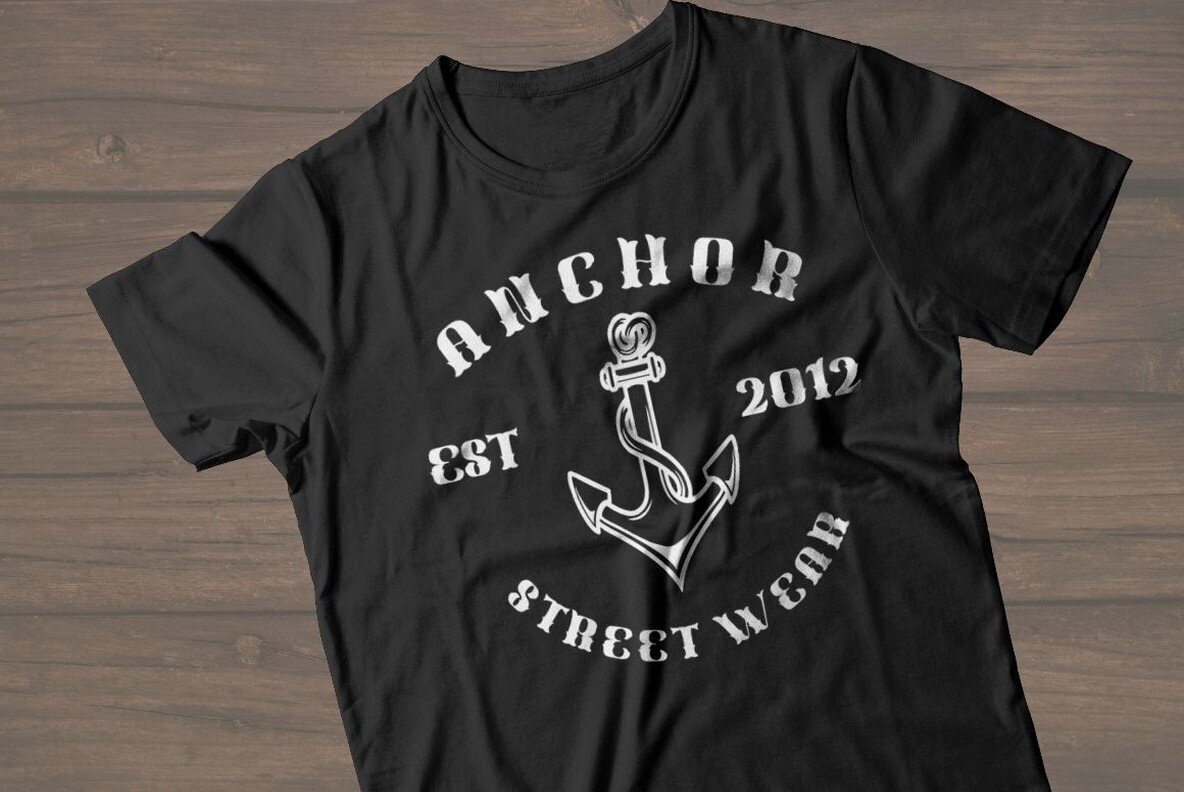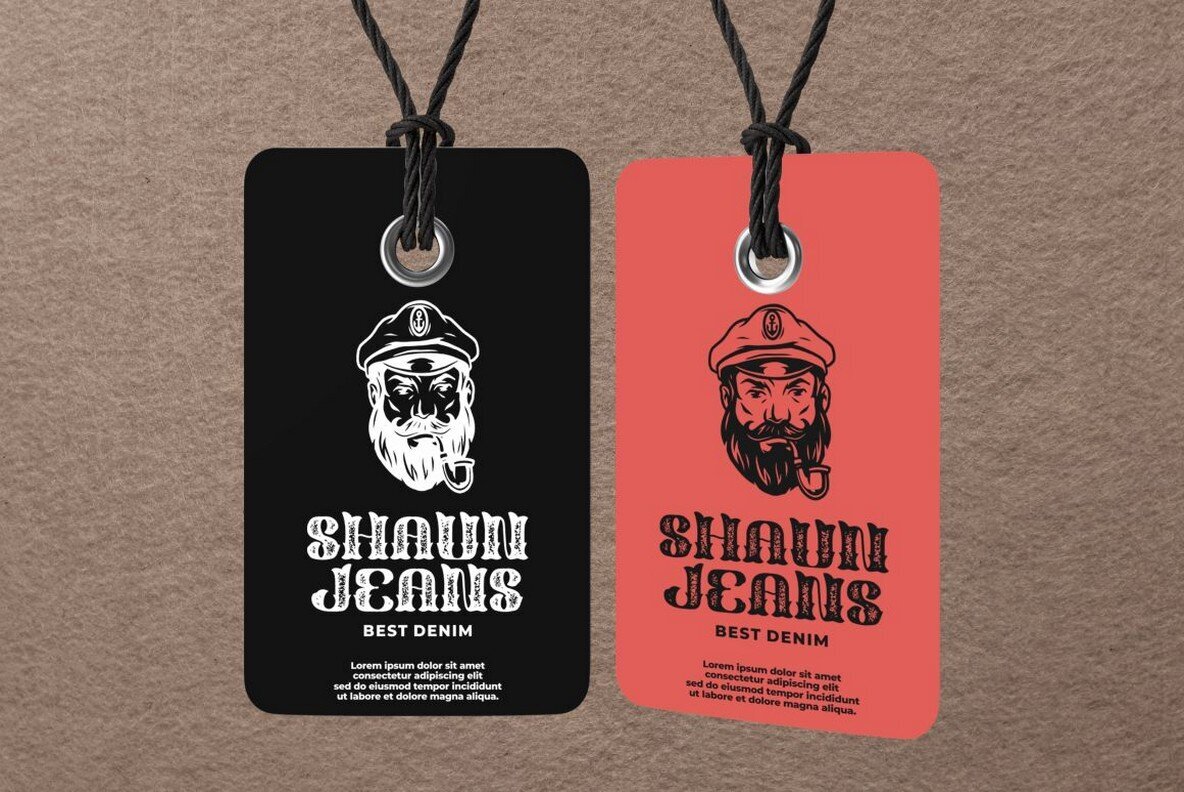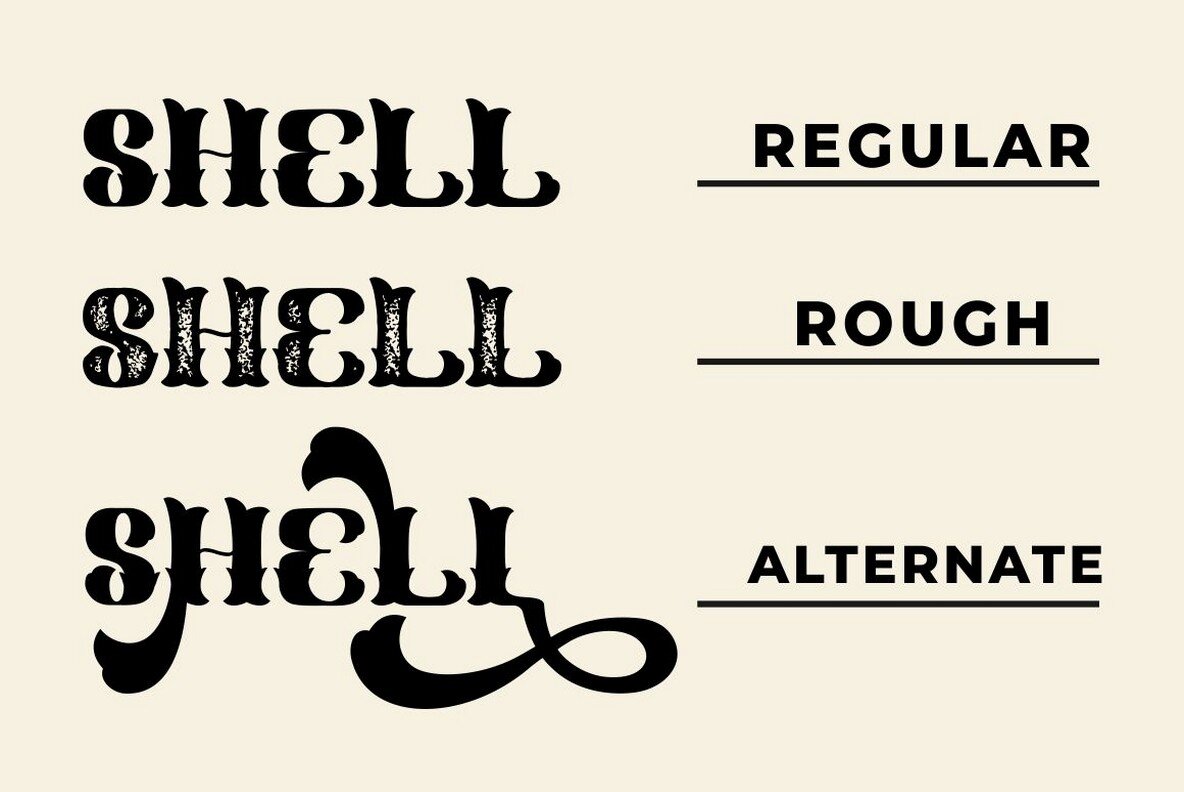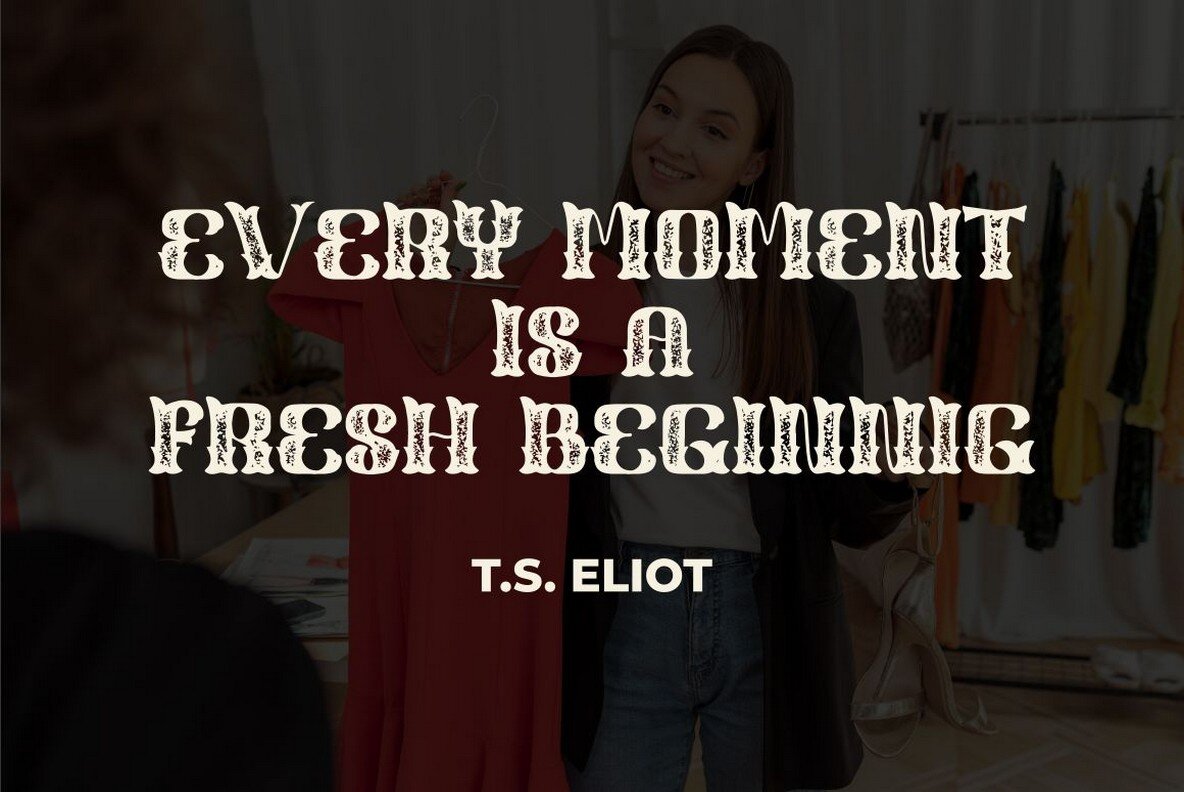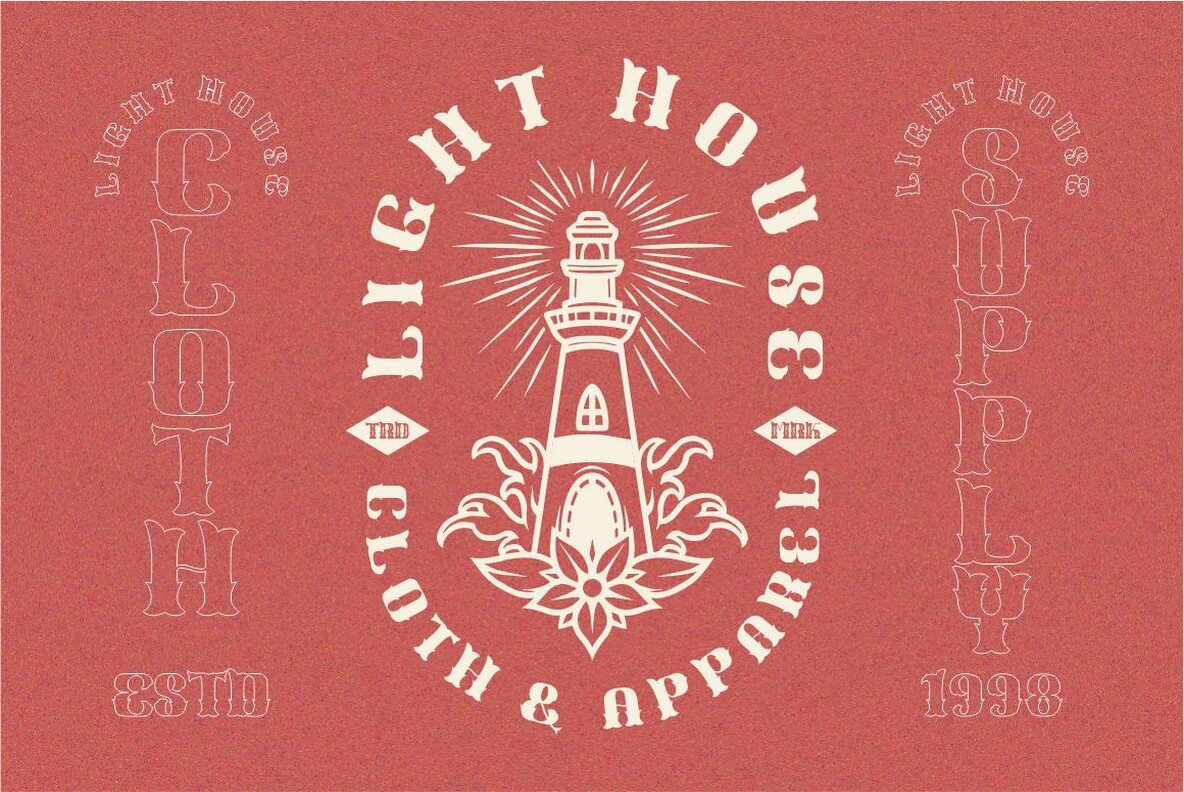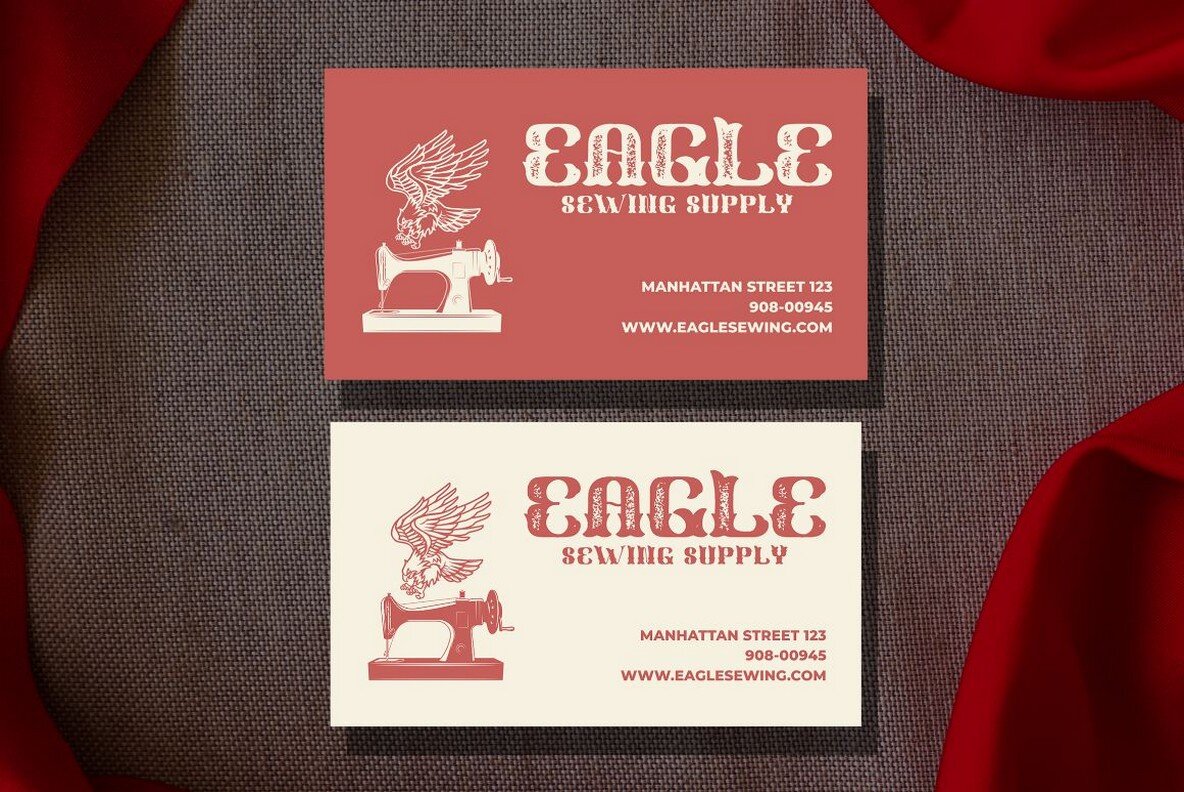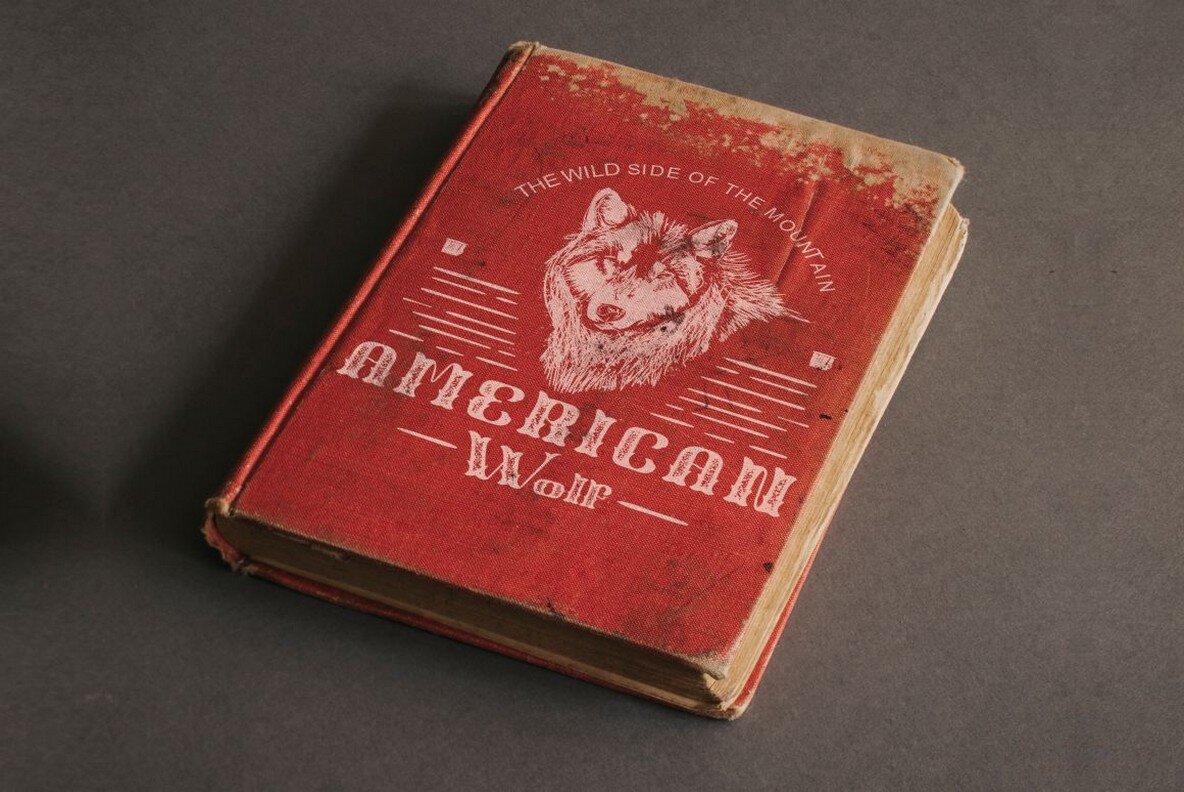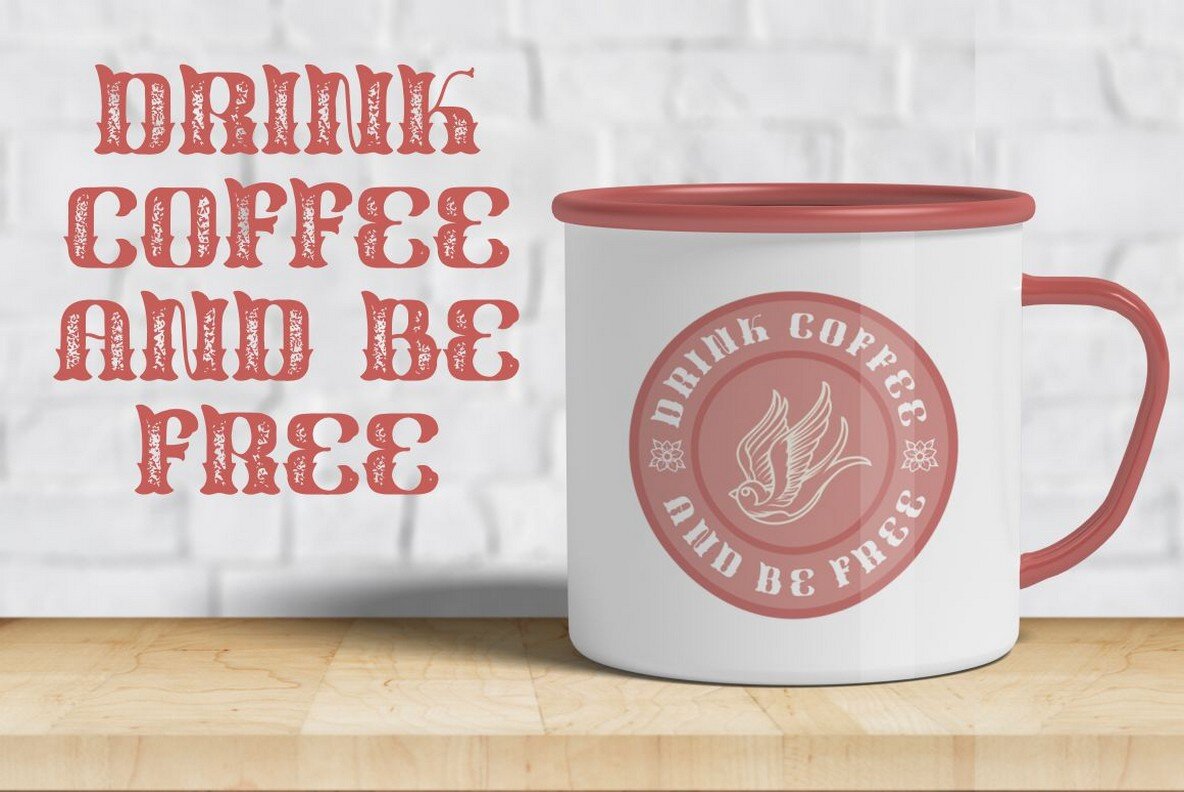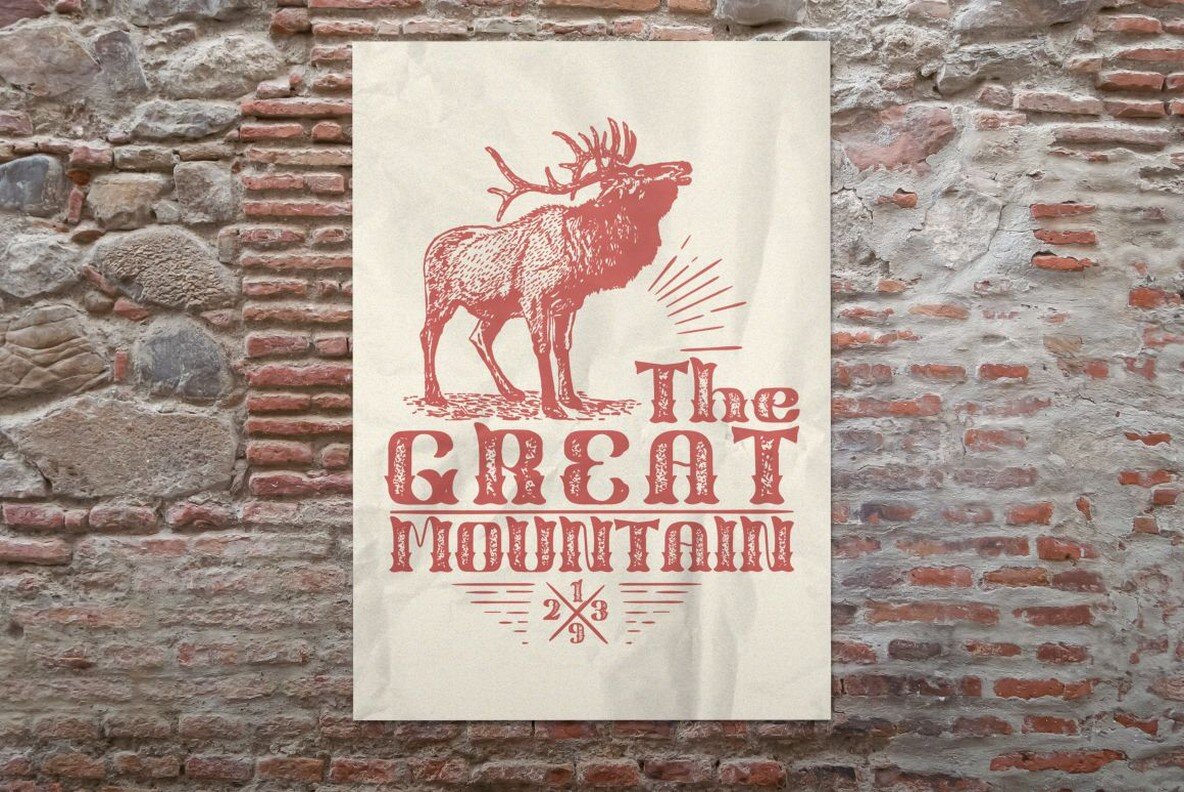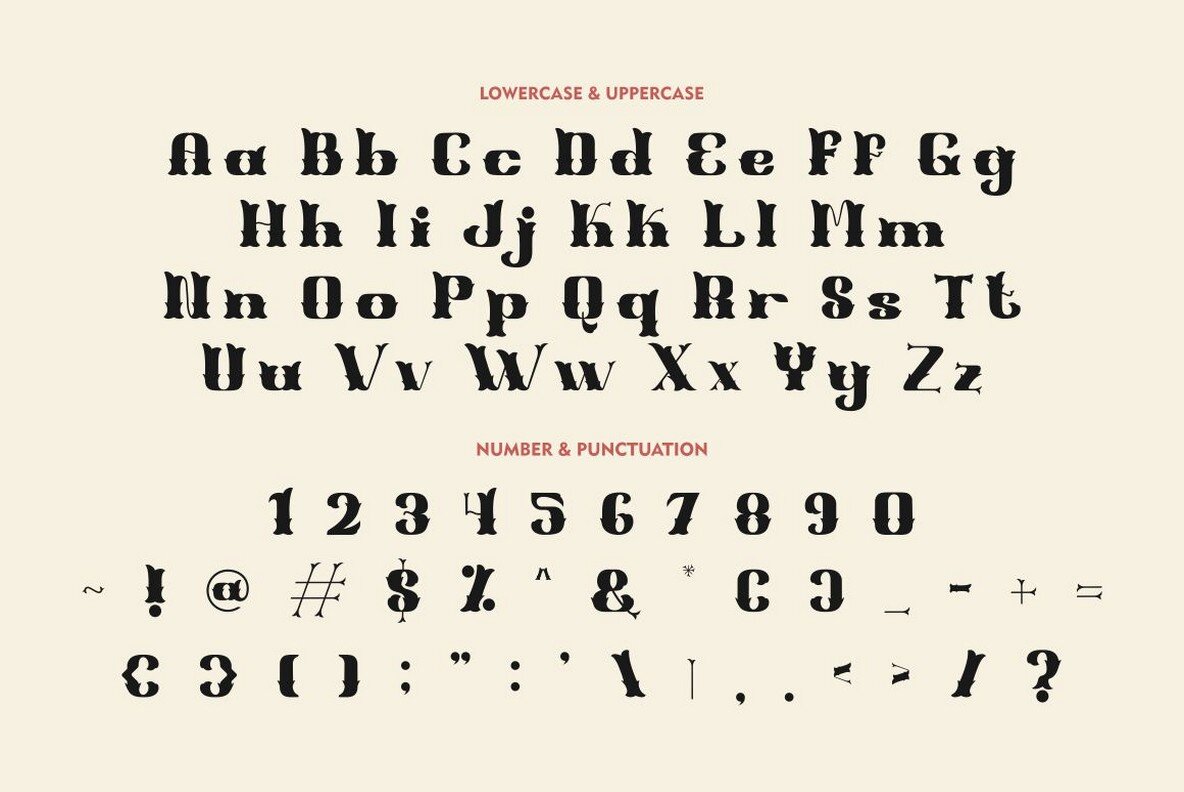
Shell Mera Font
Shell Mera Regular
Shell Mera Stamp
Shell Mera offers a nostalgic nod to the 1970s, evoking the bold spirit of cowboy and sheriff posters while maintaining versatility for everyday projects. Its distinct charm lies in the varied height of each character, with an irregular baseline adding to its unique personality. This font is perfect for titles, invitations, headings, covers, posters, logos, quotes, product packaging, and more. Elevate your social media and greeting card designs with its distinctive style.Shell Mera: Vintage-Inspired Slab Serif